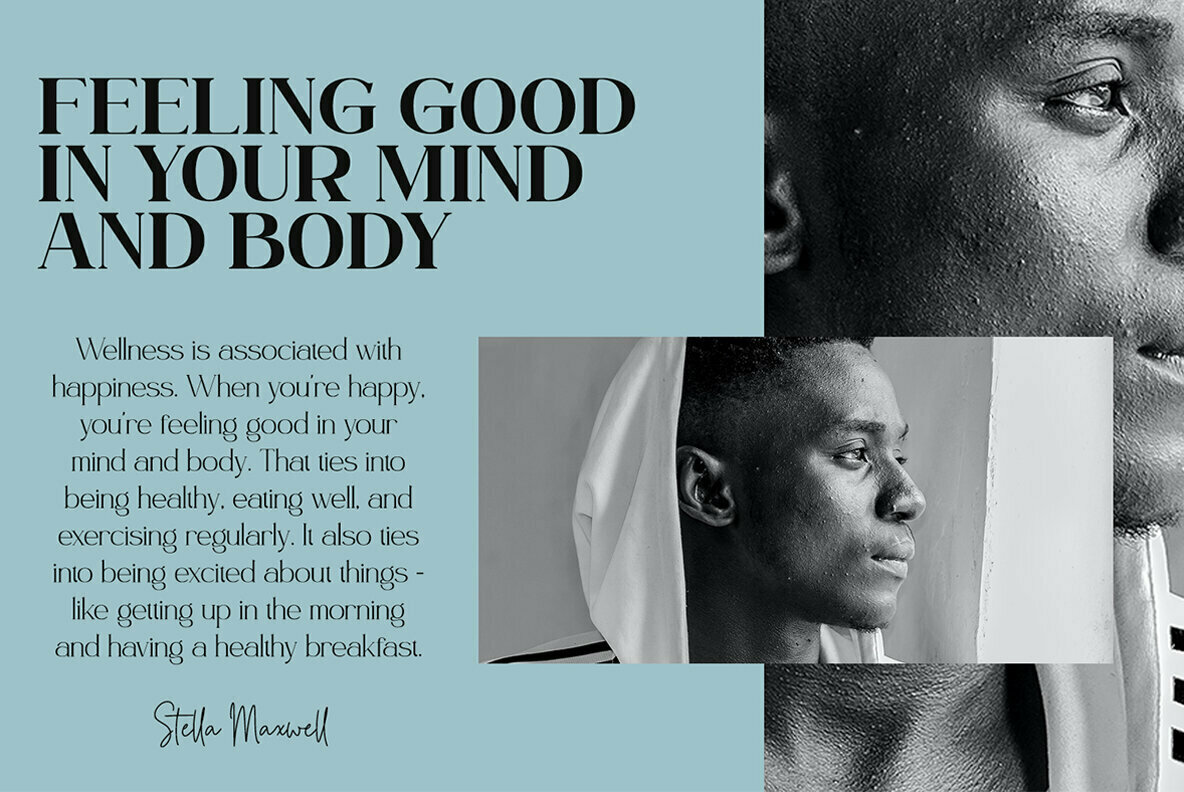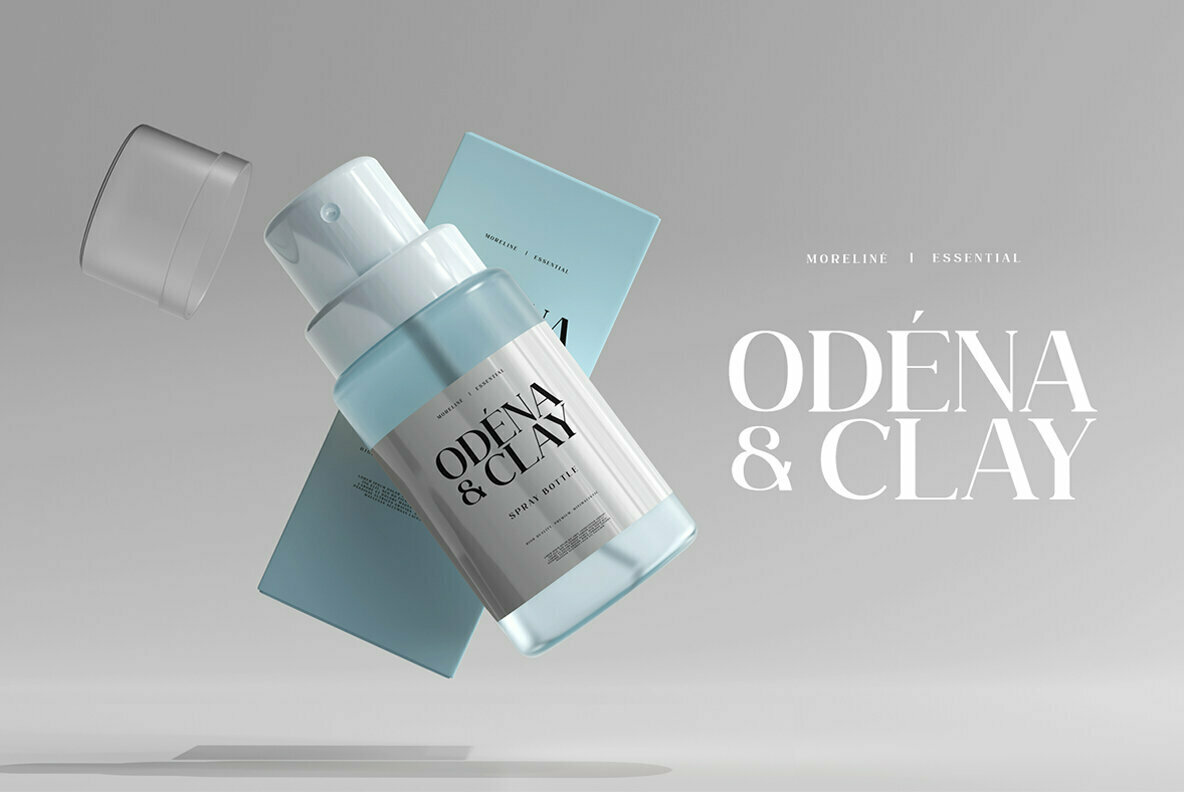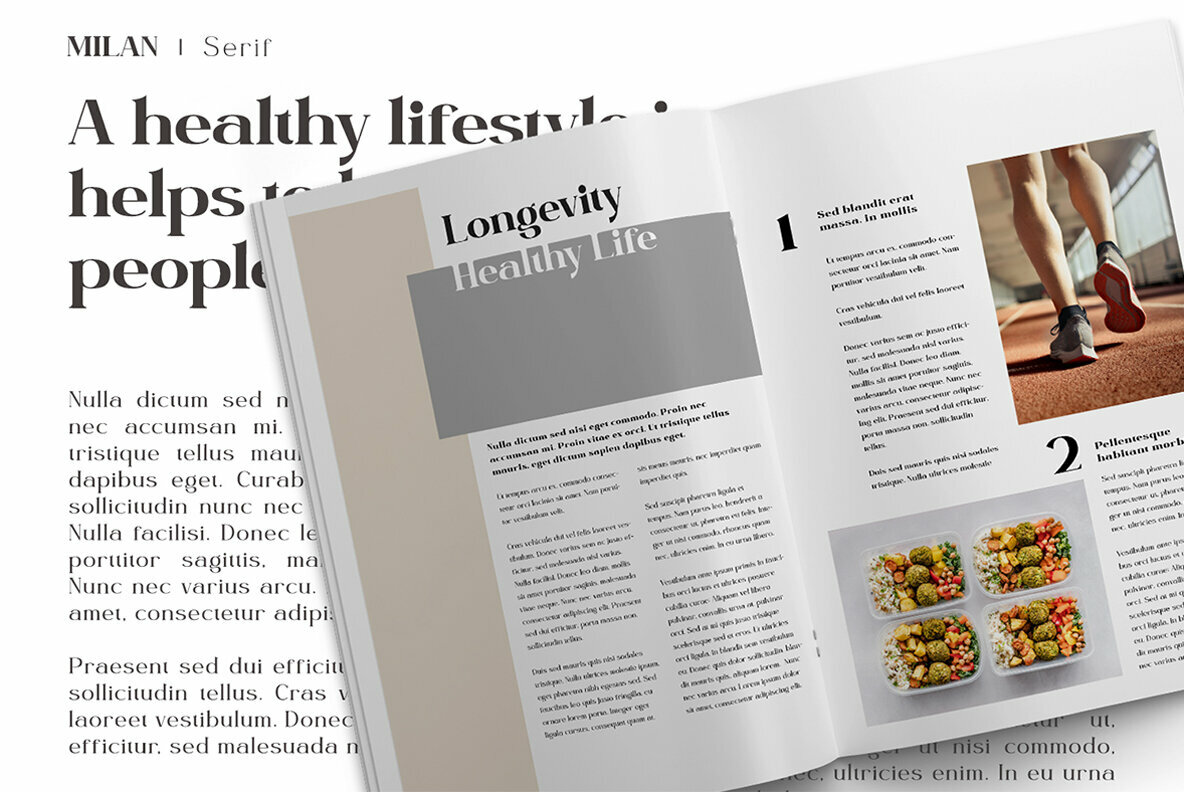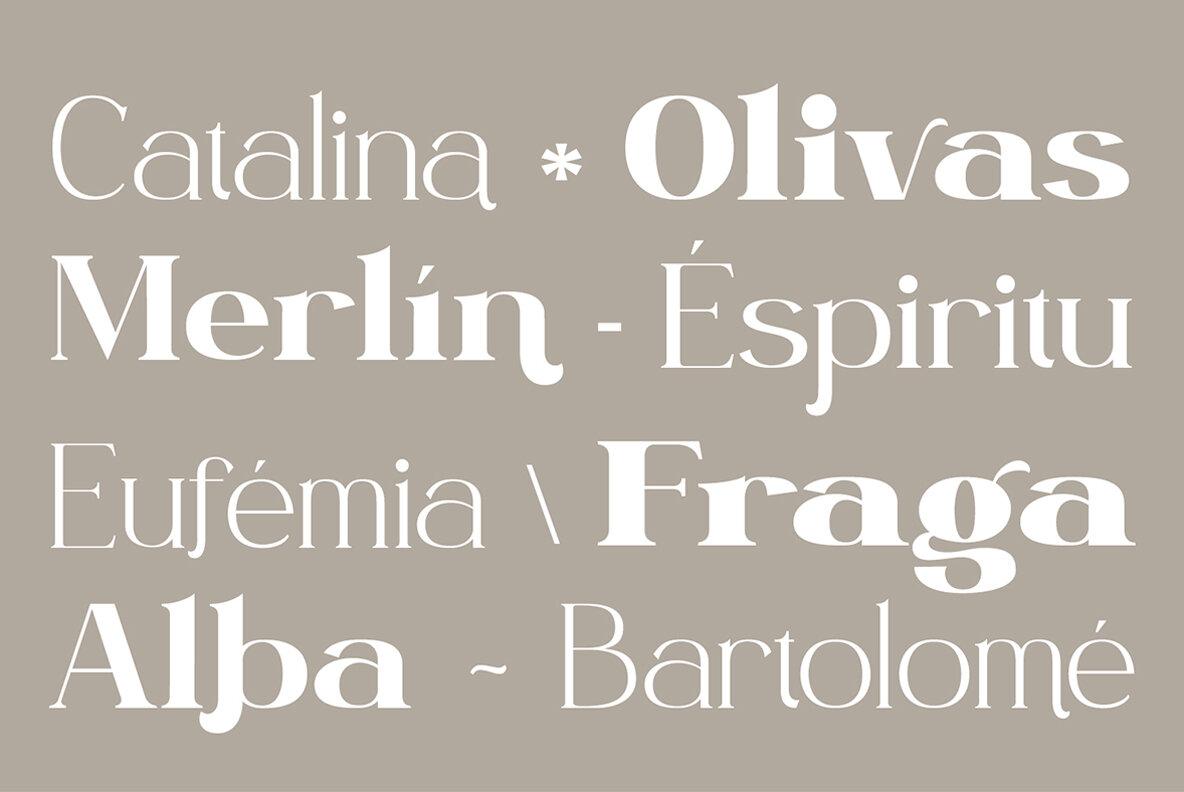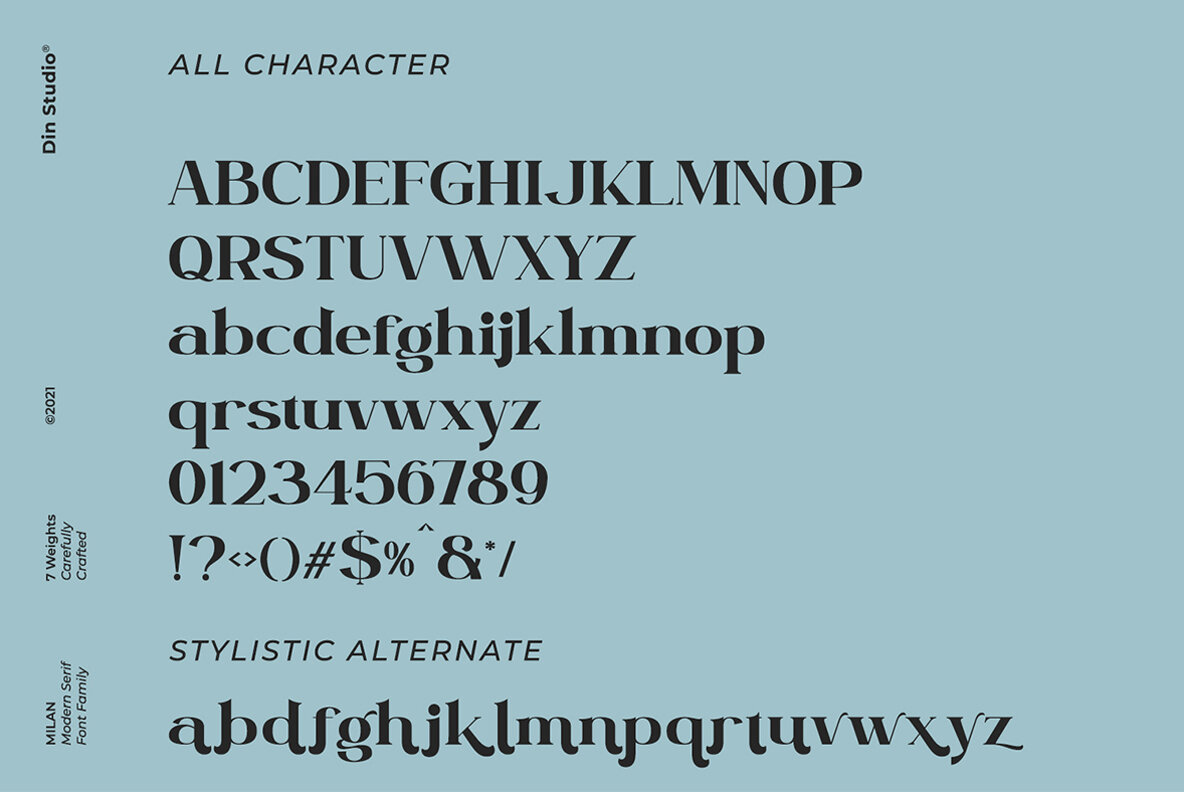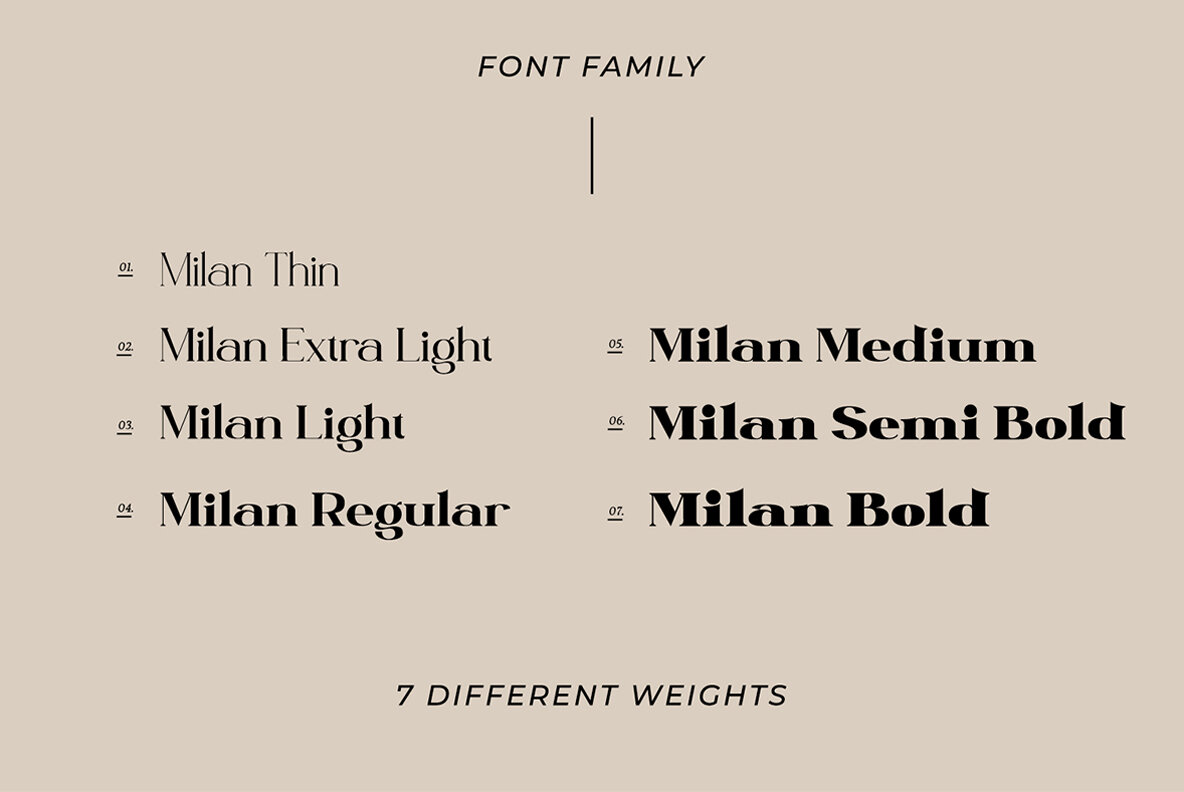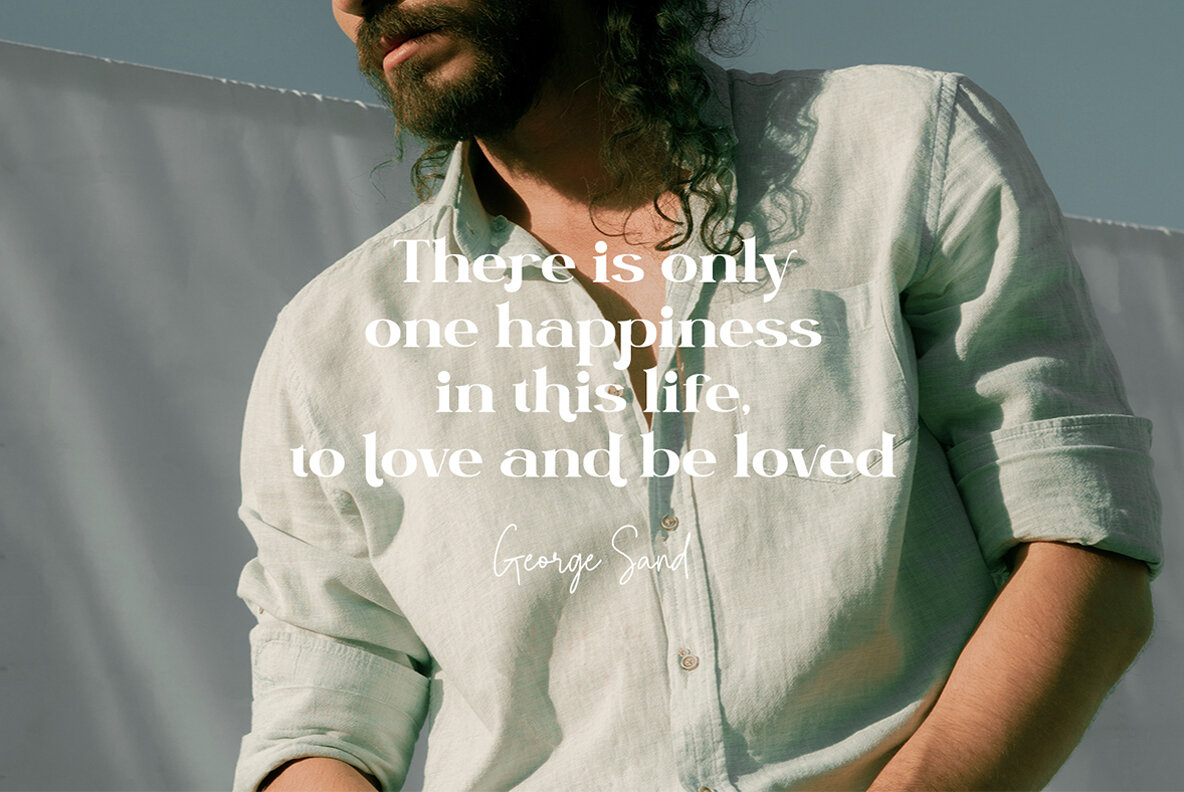
Milan: A Versatile Font Family for Impactful Designs
Enrich your design projects with the Milan font family. This package provides an expansive range of weights, offering a stylistic depth that enhances branding projects with both aesthetic appeal and readability. Comprising uppercase and lowercase characters, Milan excels in creating engaging headings, logos, menus, and social media graphics.
• Seven carefully crafted weights, including Thin, Light, Regular, Medium, Semi Bold, and Bold
• Multilingual support
• Comprehensive numerals and punctuation